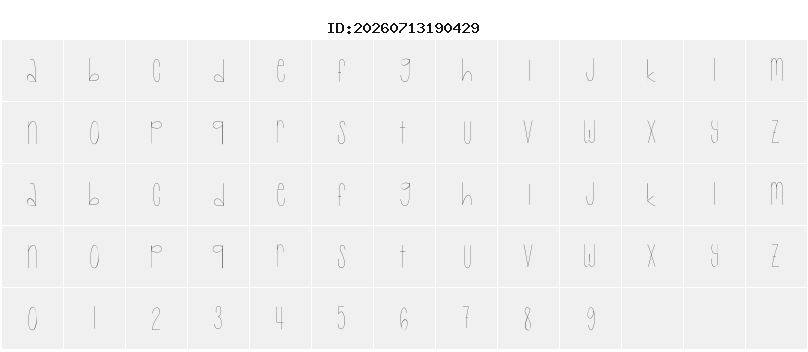
Baby Lexi Skinny Preview
• Font Name: Baby Lexi Skinny
• Font ID: Vanessa Bays - Baby Lexi Skinny
• Full Font Name: Baby Lexi Skinny
• PostScript Name: BabyLexiSkinny
About Baby Lexi Skinny.ttf
Baby Lexi Skinny.ttf is a modern, elegant sans-serif font designed for ultimate readability and visual harmony. Perfect for branding, headlines, web design, and print materials.